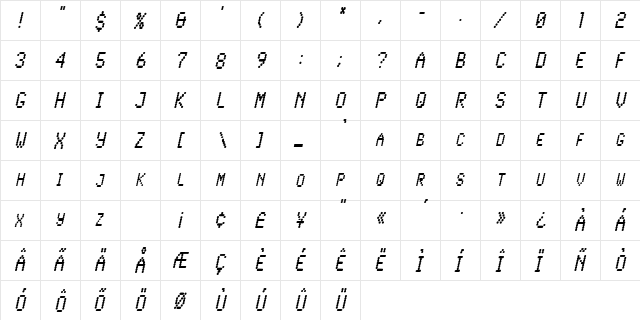
LowtechCondensed Oblique
Design Context for LowtechCondensed Typeface
LowtechCondensed channels digital-age aesthetics through its sharp, structured letterforms — ideal for brands that want to signal innovation. Its italic angle brings a sense of urgency and motion to the letterforms. The condensed width makes it efficient for tight spaces without sacrificing legibility.